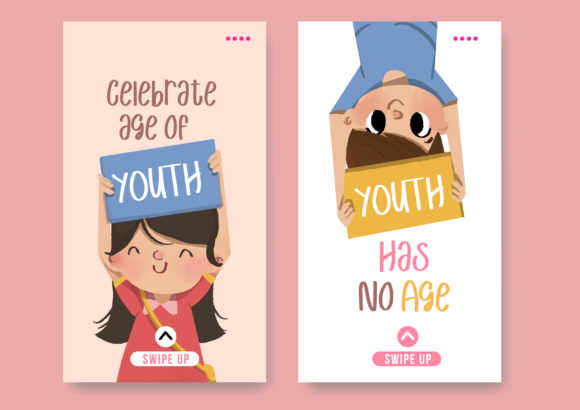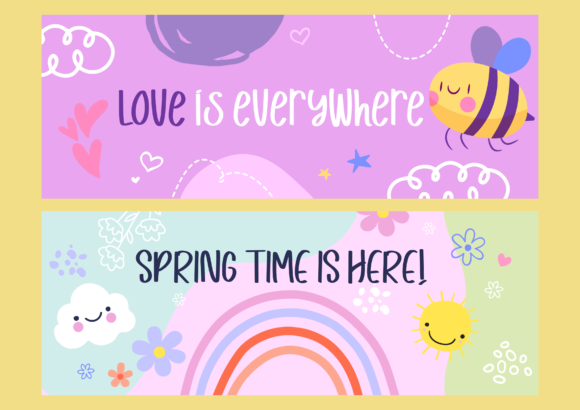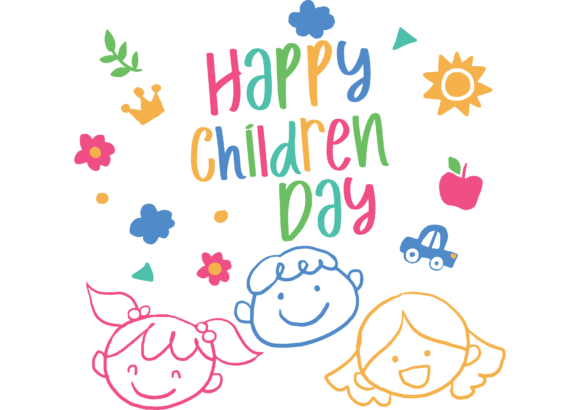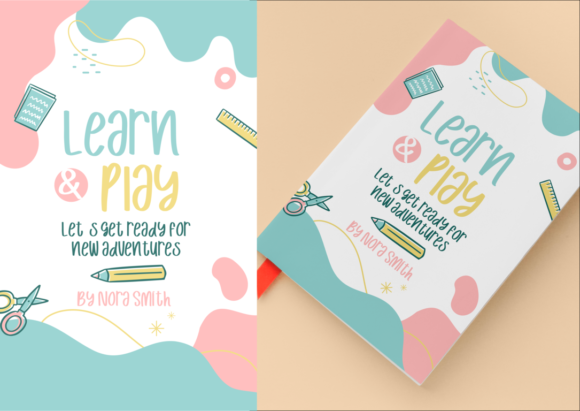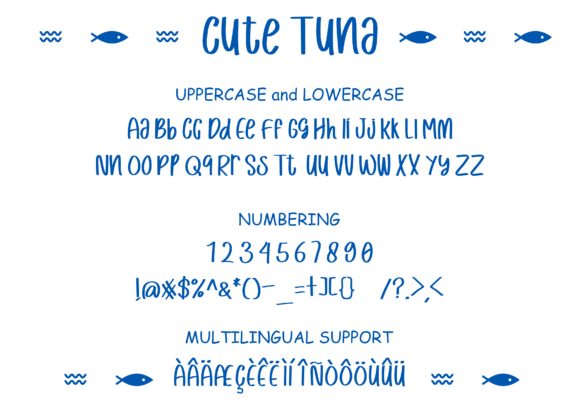
Introduction to Cute Tuna Font
Do you remember the feeling of creating your first handmade birthday card for a loved one? The excitement of choosing the perfect font, the color of the paper, and the design elements that would make it special? That’s the magic of design, and it’s what makes the Cute Tuna Font so valuable to designers.
This playful and friendly display font is a design resource that embodies the spirit of creativity and authenticity. With its transparent background, it’s the perfect choice for any children’s activity or school project, adding a touch of warmth and personality to any design. Whether you’re working on a high-quality creative project or simply need a fun font for a free download, Cute Tuna Font is sure to bring a smile to your face and inspire your imagination.
Key Features of Cute Tuna Font
- High-quality design: The Cute Tuna Font is a beautifully crafted font that is perfect for creative projects.
- Transparent background: This font features a transparent background, making it ideal for use on any color or image.
- Unique characteristics: The font features a fun, playful style with a variety of characters and symbols.
Honest Review: Cute Tuna Font
As a designer, I’m always on the lookout for high-quality design resources to elevate my creative projects. The Cute Tuna Font is one such resource that caught my attention. In this review, I’ll share my honest thoughts on what works well and what doesn’t.
- The Cute Tuna Font has a unique and playful design that’s perfect for projects that require a touch of whimsy.
- The transparent background allows for easy customization and pairing with other design elements.
- The font may not be suitable for formal or professional projects due to its playful nature.
- The font family is relatively small, which may limit its versatility in certain design scenarios.
Overall, the Cute Tuna Font is a great design resource for designers who want to add a touch of fun and personality to their creative projects. While it has some limitations, its unique design and free availability make it a valuable addition to any designer’s toolkit.
Cute Tuna Font is a free download, high-quality design resource ideal for creative projects requiring a playful touch. Its transparent background makes it easy to integrate into various design elements.
For optimal results, use Cute Tuna Font in conjunction with other design elements that match its playful style. Experiment with different font sizes, colors, and combinations to find the perfect balance for your creative project.
Cute Tuna Font is ideal for social media graphics, blog posts, and other online content requiring a fun and engaging tone. Its high-quality design and transparent background make it a versatile resource for a wide range of creative projects.
Yes, Cute Tuna Font is designed to be highly scalable and suitable for high-resolution designs. It features a high-quality design with a transparent background, making it perfect for use in creative projects that require crisp, clean typography.